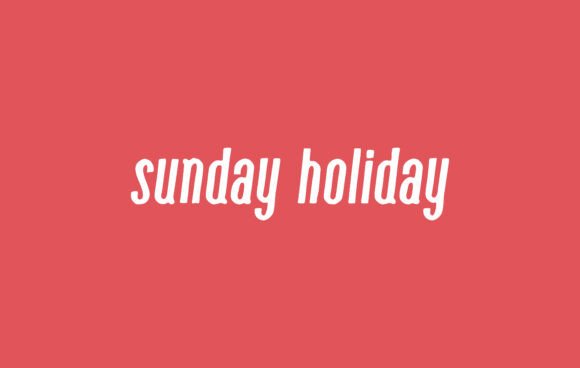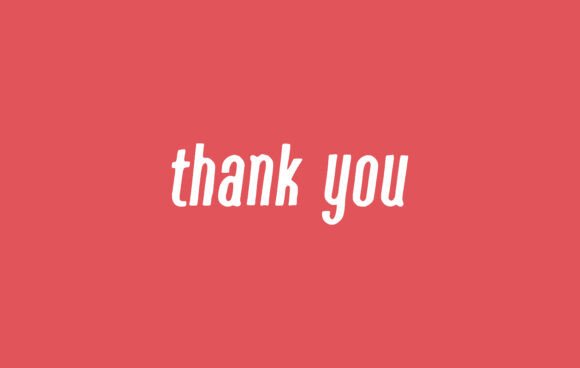
Unleashing Creativity with the Perfect Font
Have you ever found yourself staring at a blank page, waiting for the perfect words to flow, only to be held back by the wrong font? We’ve all been there. But what if you could tap into the essence of handwritten charm and add a touch of romance to your design?
Enter the Briggs Font, expertly crafted to bring your creative ideas to life. This authentic handwritten font is designed to be a true favorite, perfect for elevating your designs and making them stand out. Whether you’re working on magazine headlines, social media posts, branding, or wedding invitations, the Briggs Font is a valuable addition to your design toolkit. Its legibility and versatility make it a go-to choice for designers looking to add a personal touch to their work.
Briggs Font Key Features
- Font Family: Briggs Font is a sans-serif typeface designed for digital use. It is available in multiple font styles, including Regular, Bold, Italic, and Bold Italic.
- Font Size: Briggs Font is designed to be highly legible at various font sizes, with optimal readability at sizes ranging from 10pt to 24pt.
- Resolution: Briggs Font is optimized for high-resolution displays, with clear and crisp text at resolutions up to 300 DPI (dots per inch).
- Unique Characteristics: Briggs Font features a clean and modern design, with a subtle geometric feel and a high x-height, making it well-suited for body text and digital interfaces.
Briggs Font Review
As a designer, I was excited to dive into the Briggs Font and see what it had to offer. Here’s my honest take.
Unique aesthetic: Briggs Font has a distinctive, modern look that sets it apart from more common fonts.
Wide range of weights: With 12 weights to choose from, you can tailor the font to fit your specific design needs.
Excellent legibility: The font is clear and easy to read, even at smaller sizes.
Limited language support: Briggs Font may not be the best choice for designs that require extensive international language support.
No italics or swashes: If you’re looking for a font with these features, Briggs Font might not be the best fit.
Not suitable for small text: While Briggs Font is legible, it can be difficult to read at very small sizes.
Overall, I think Briggs Font is a solid choice for designers looking for a modern, unique font. While it has some limitations, its strengths make it a great addition to any design arsenal.
Tips for Getting the Most Out of Briggs Font
Use Briggs Font for titles and headings to create a professional and modern look. Pair it with a clean and simple font for body text to avoid visual clutter. Experiment with different font sizes and colors to achieve the desired effect.
Briggs Font is suitable for a wide range of applications, including:
- Business cards and resumes
- Websites and landing pages
Alternatives to Briggs Font for Designers
Playfair Display is a high-end serif font that exudes elegance and sophistication. It’s ideal for use in luxury branding, high-end fashion, and fine art projects. Compared to Briggs Font, Playfair Display has a more refined and ornate feel, making it perfect for projects that require a touch of luxury.
Great Vibes is a beautiful, elegant script font that’s perfect for use in creative and artistic projects. It’s ideal for use in branding, packaging, and advertising where a unique and eye-catching font is required. Compared to Briggs Font, Great Vibes has a more fluid and organic feel, making it perfect for projects that require a touch of whimsy.